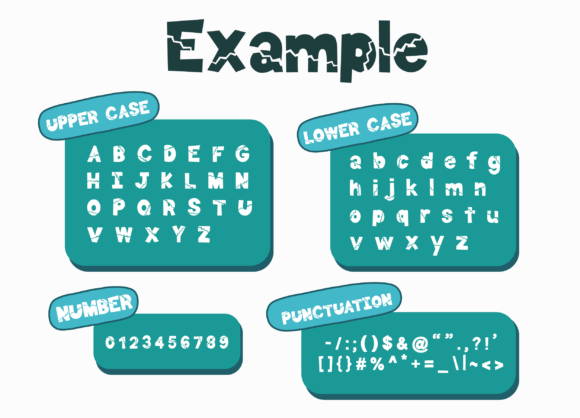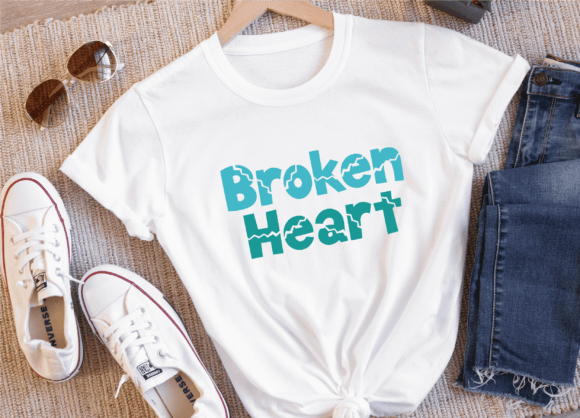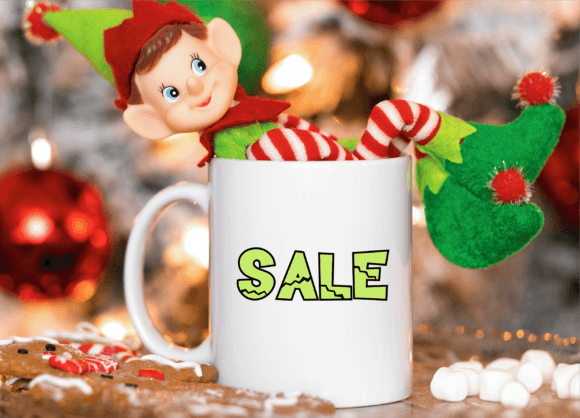
Bold Crack Font
About the Bold Crack Font
Make a bold statement with Bold Crack Font, a powerful and memorable font. “Bold Crack” is a super cool font that looks like it’s made of cracked glass or stone. Imagine if letters were like little pieces of glass that got cracked but still stayed bold and strong. This font has jagged lines and sharp edges that make it look tough and edgy. It’s like writing with rocks or broken glass, but in a fun and stylish way. So when you use “Bold Crack,” your words will pop out and catch everyone’s attention!
“Bold Crack” excels in headline use, short impactful statements, and branding applications where a strong, edgy personality is desired. Its unique texture works particularly well for posters, logos, and packaging designs needing a rugged, attention-grabbing aesthetic. However, its highly textured nature makes it unsuitable for body text or UI elements; readability suffers at smaller sizes.
For effective pairings, consider a clean, geometric sans-serif like Futura or a classic serif such as Garamond to provide a contrast that balances the font’s raw energy. This creates visual harmony, preventing the design from feeling overwhelming. A minimalist script font could also work for secondary text elements, adding a touch of sophistication.
The overall personality is bold, rebellious, and modern. It’s ideal for brands that project strength, innovation, or a slightly unconventional image. Avoid pairing it with other highly textured or decorative fonts; the effect would be visually jarring and clashing.
Bold Crack Font Usage Examples
Bold Crack Font Example